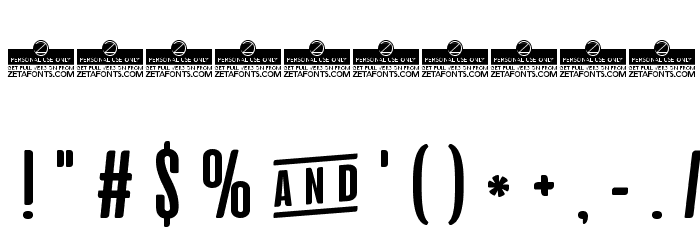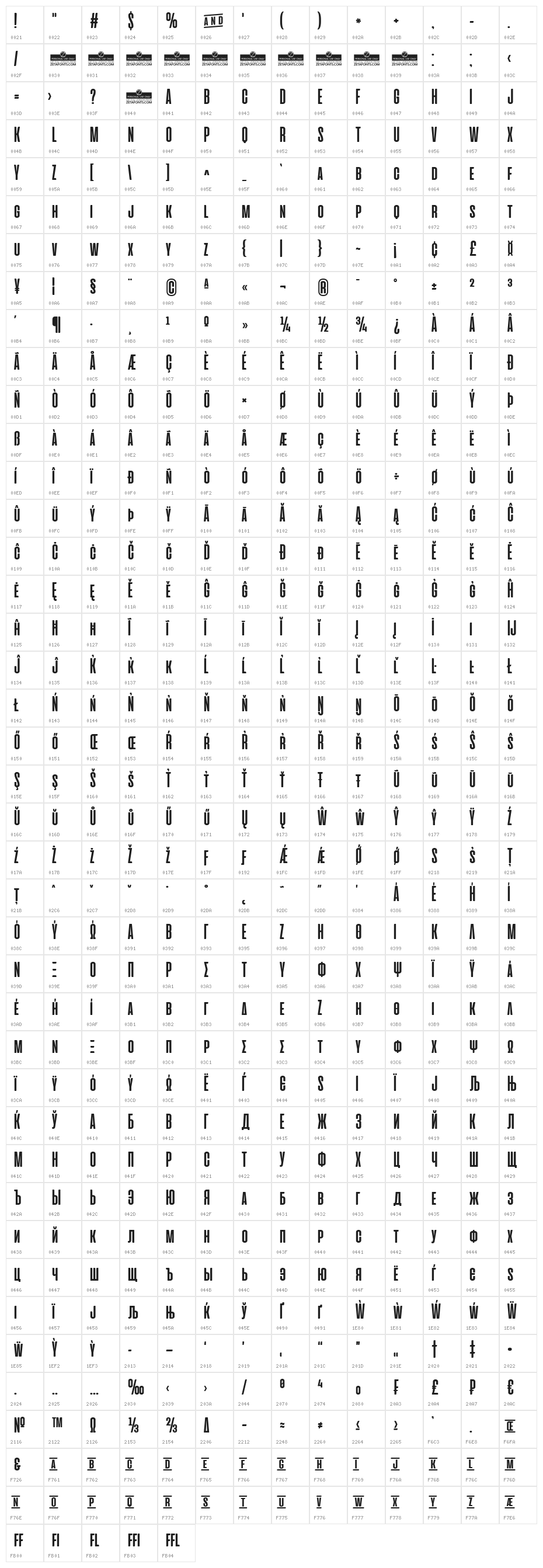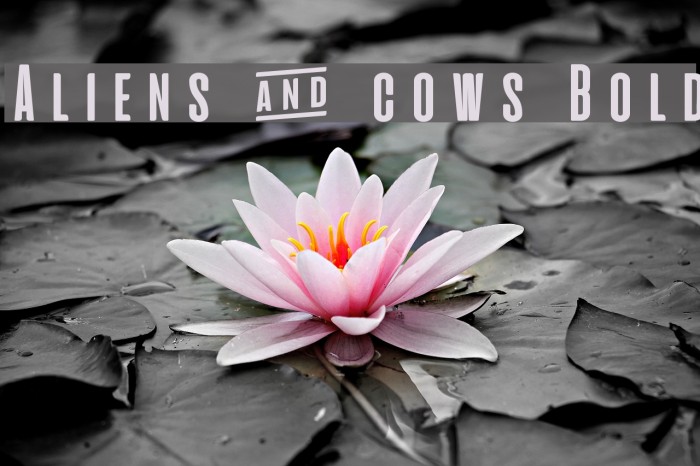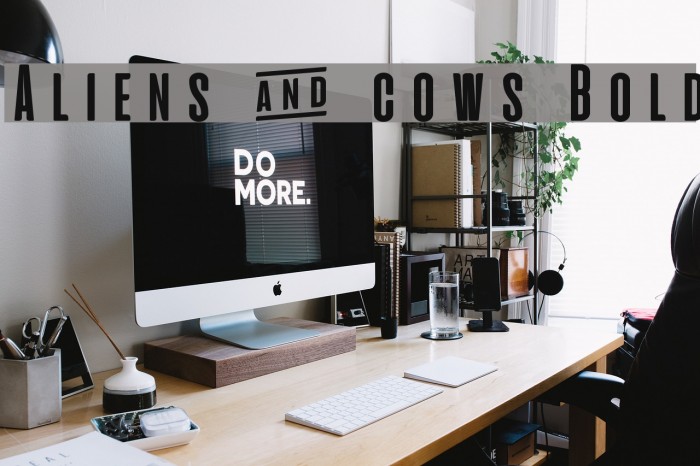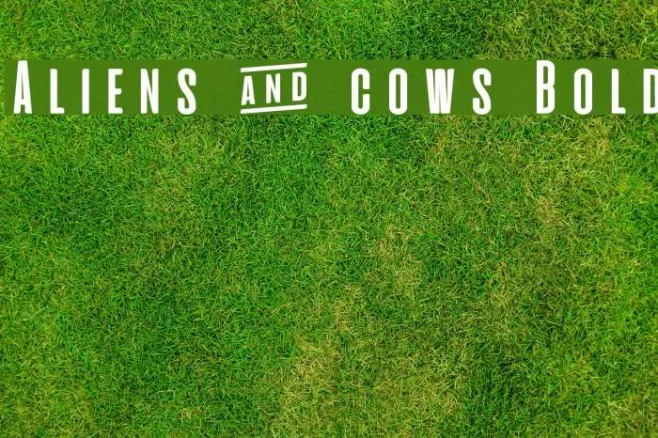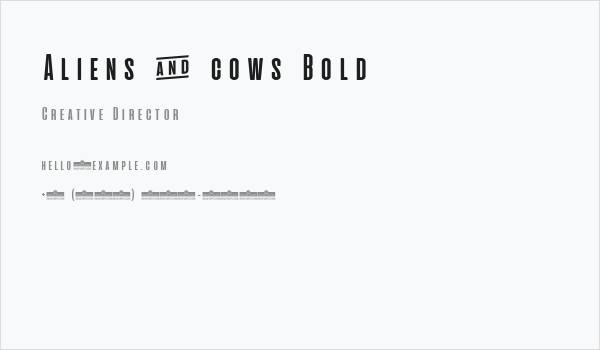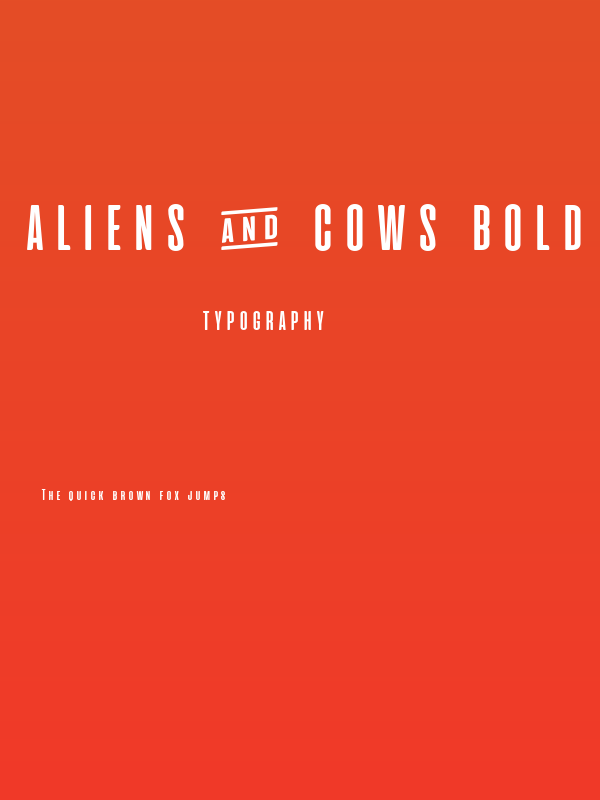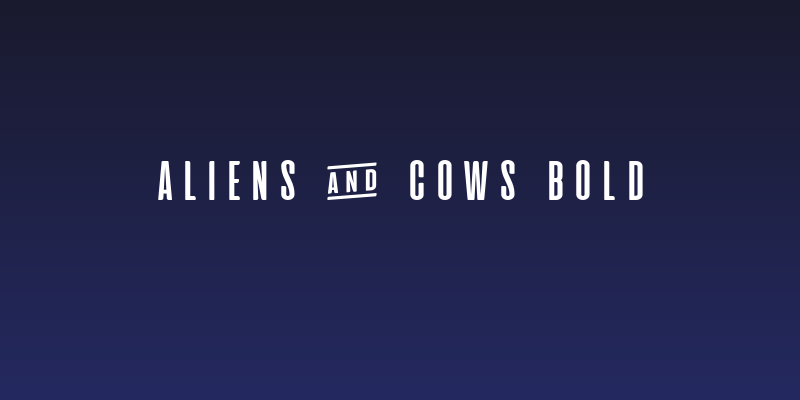
Aliens & cows Bold Font
Aliens & cows Bold Description
This font features a bold and striking design, characterized by its tall, narrow letterforms and uniform stroke width. The uppercase and lowercase letters maintain a consistent height, creating a cohesive and modern appearance. The font's geometric structure and clean lines make it highly legible, even at smaller sizes. It includes a full set of uppercase and lowercase letters, numerals, and a variety of special characters, providing versatility for different design needs. The bold weight and condensed width give it a strong presence, making it ideal for attention-grabbing headlines and impactful designs.